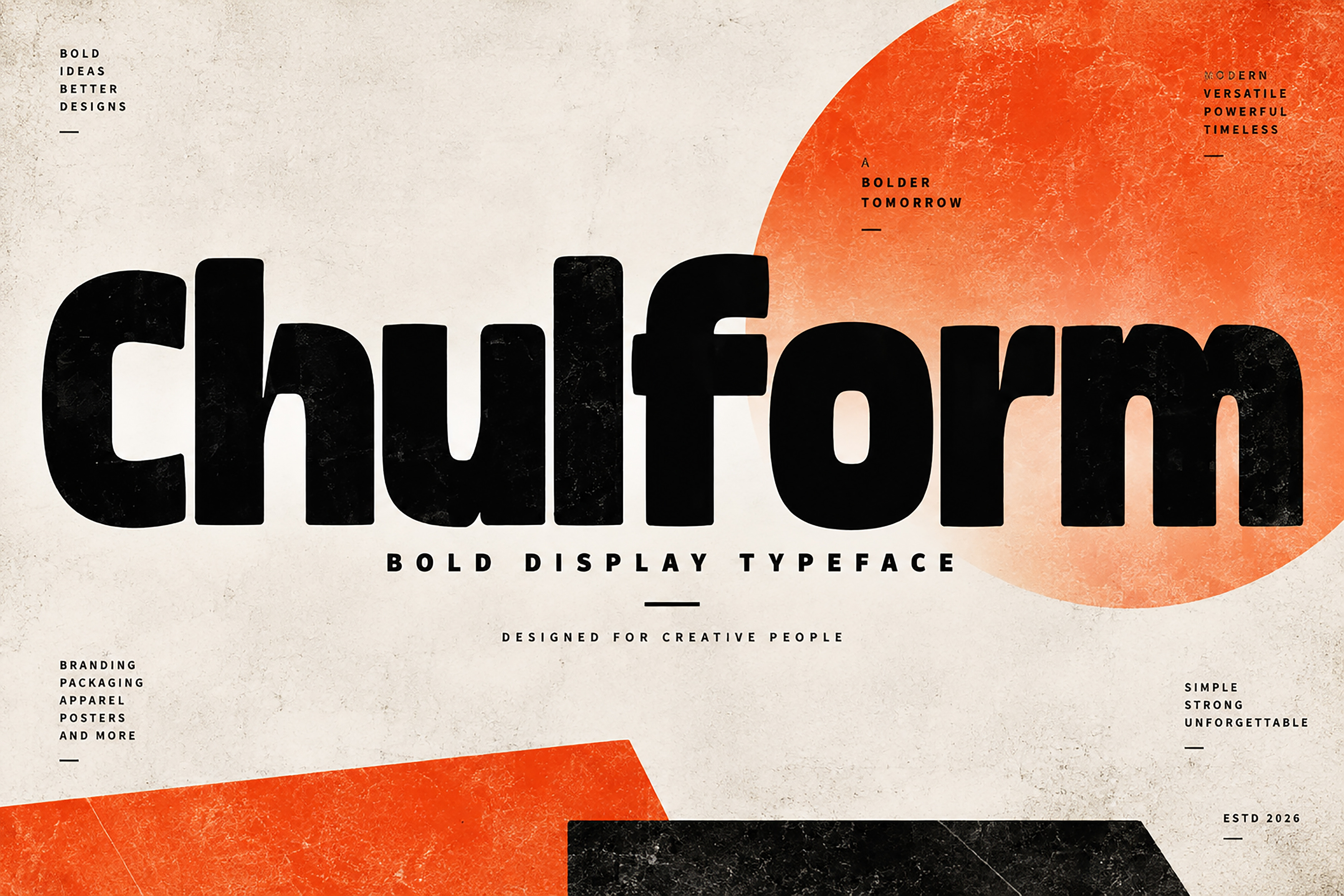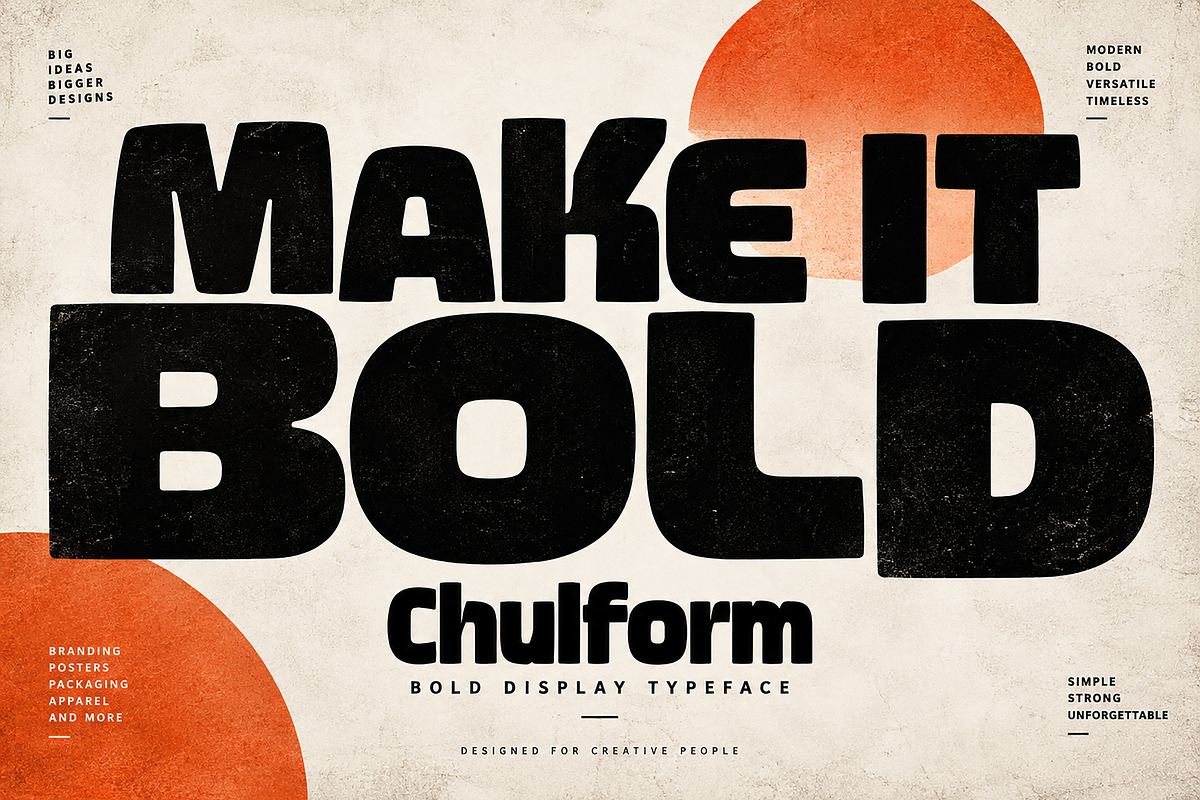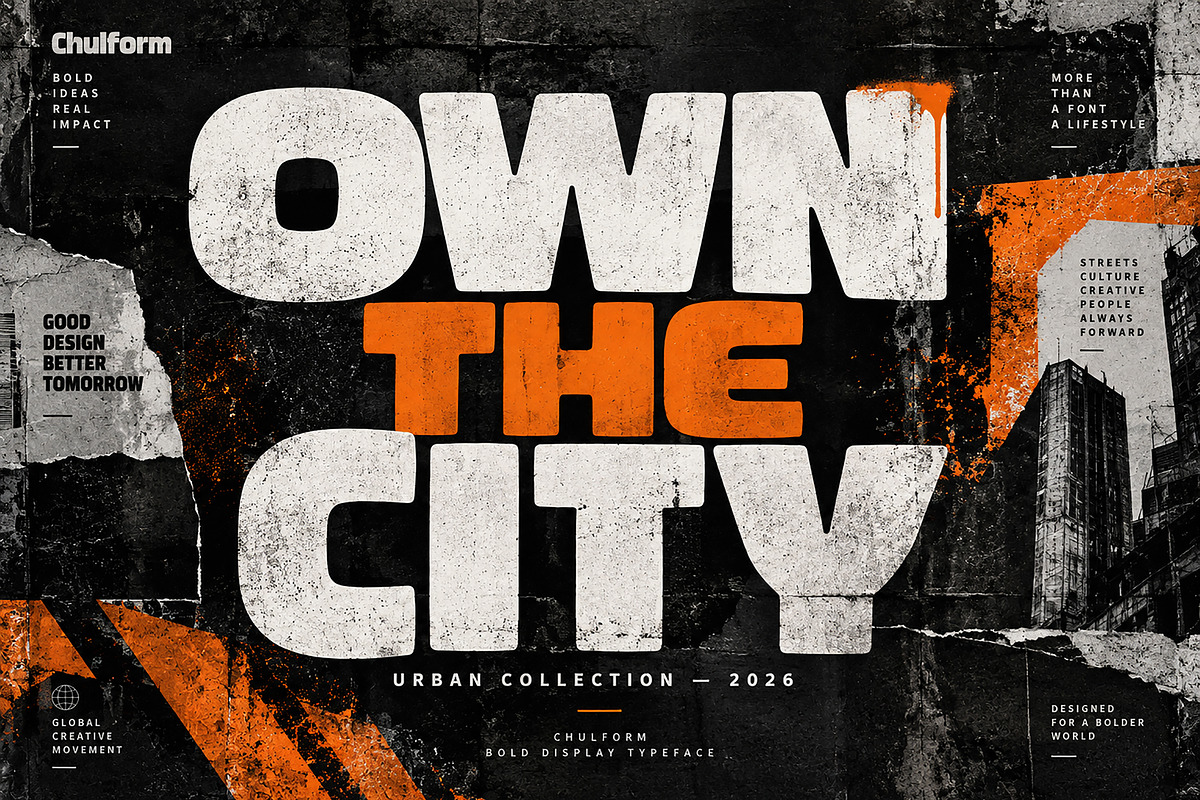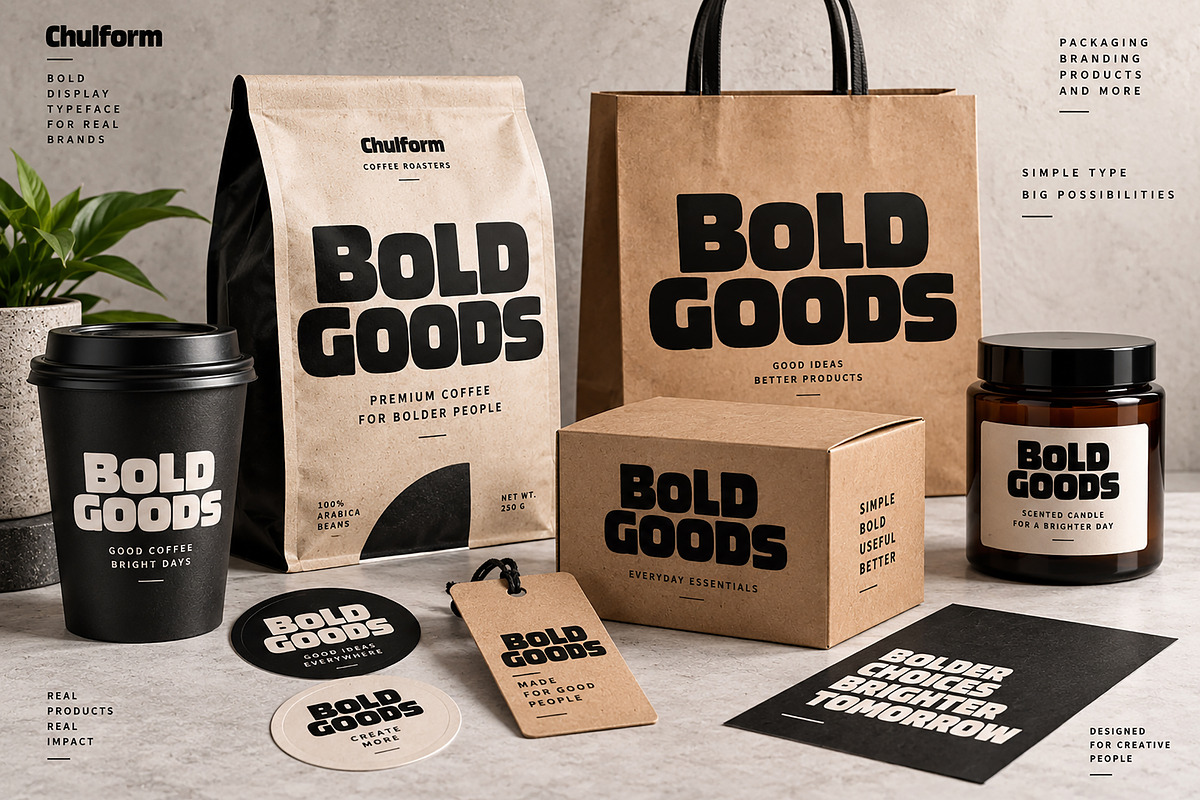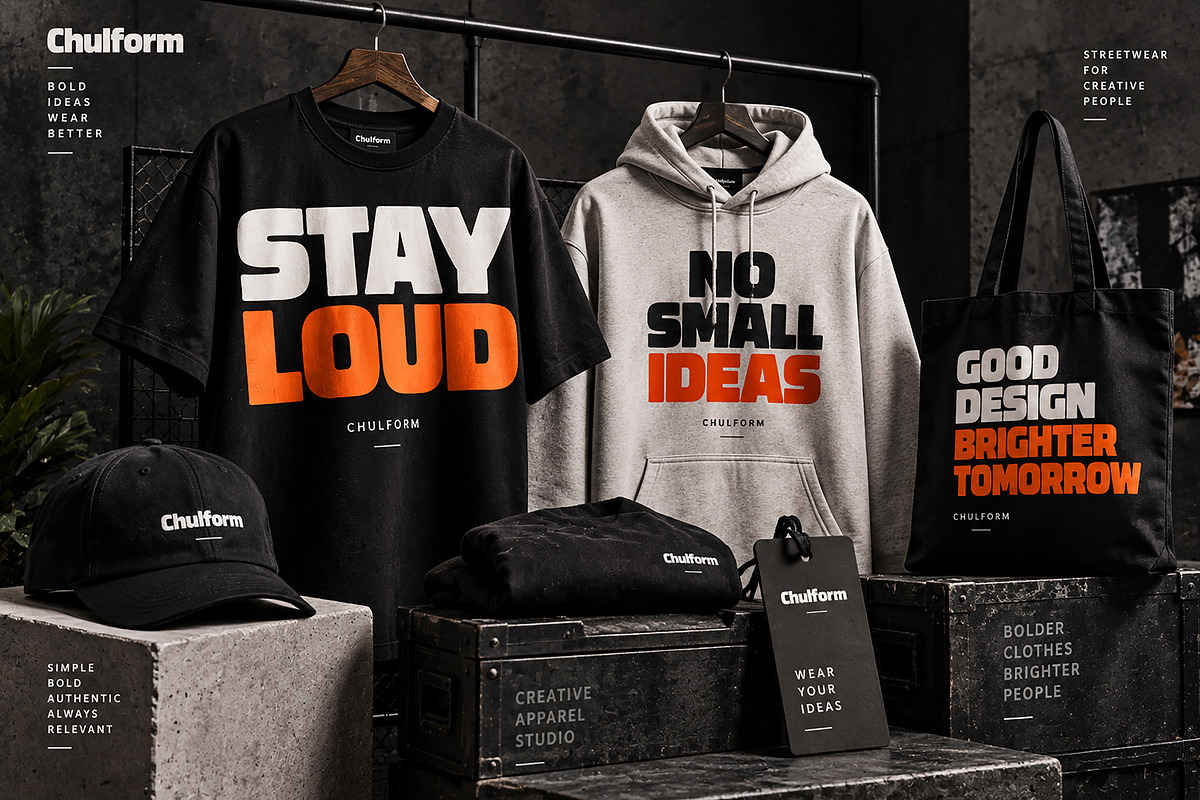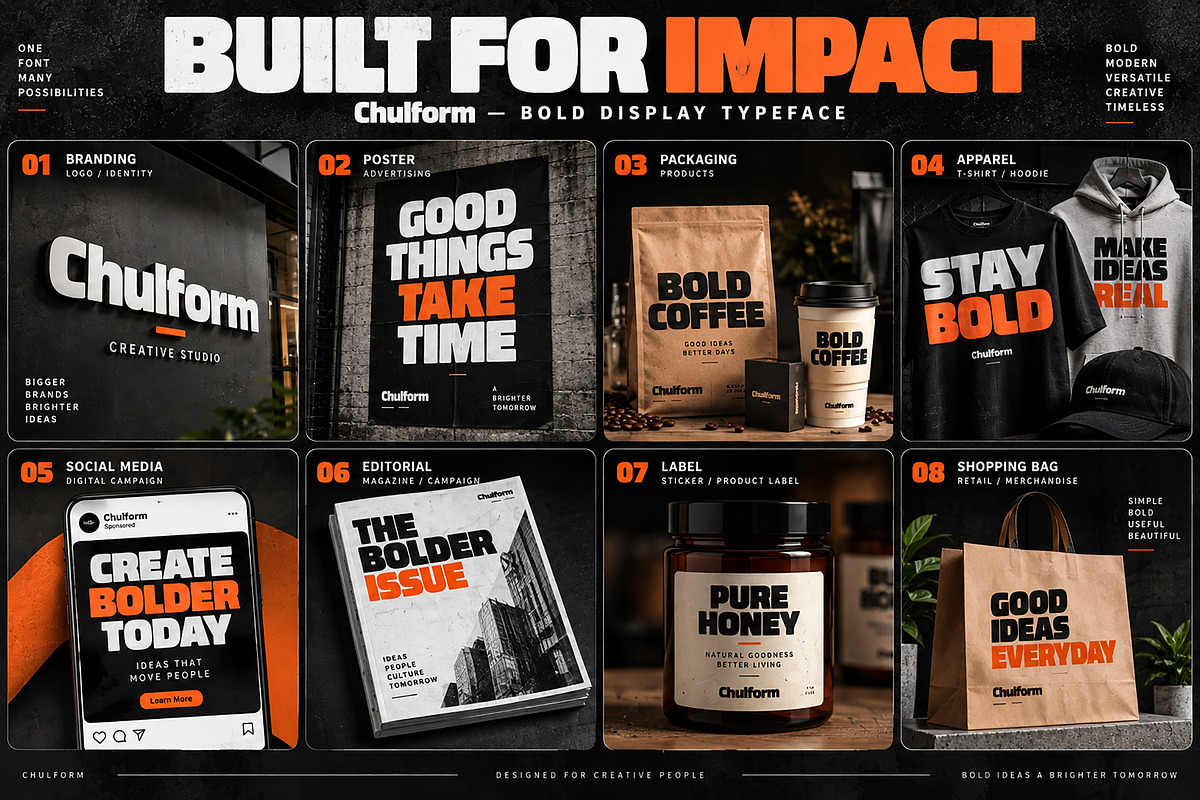
Chulform - Bold Display Typeface
Chulform is a bold and chunky display typeface designed to make your typography instantly stand out. With its heavy letterforms, compact proportions, and strong visual presence, Chulform is perfect for eye-catching headlines, branding, posters, packaging, apparel, advertising, and modern graphic design projects.
Its powerful display style works especially well when you need typography with a confident, energetic, and contemporary personality. Use Chulform for bold logos, streetwear graphics, product packaging, promotional campaigns, editorial layouts, social media designs, labels, stickers, merchandise, and more.
Logo & Brand Identity
Posters & Advertising
Streetwear & Apparel
Labels & Stickers
Editorial & Magazine Design
Headlines & Display Typography
Promotional Materials
Chulform is built for designers who want bold typography with maximum visual impact.